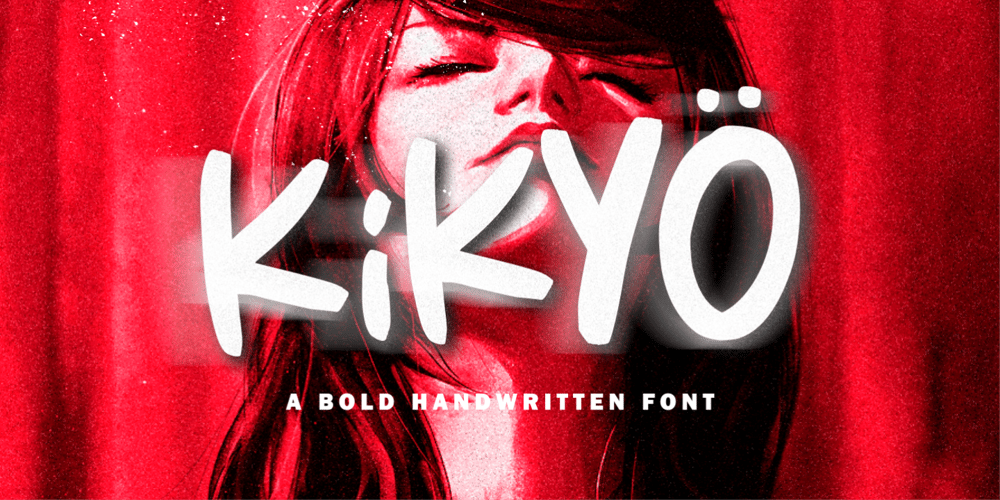
Kikyo Font Family was designed by Fachrizal Yusuf and published by Allouse Studio. Kikyo contains 1 styles and family package options. Kikyo a Bold Handwritten Font that will bring you an a “badass” impression.Kikyo come with Multi-Lingual Suopport.We highly recommend using a program that supports OpenType features and Glyphs panels like many of Adobe apps and Corel Draw, so you can see and access all Glyph variations.Kikyö is perfect for product packaging, branding project, megazine, social media, wedding, or just used to express words above the background.Enjoy the font, feel free to comment or feedback, send me PM or email.